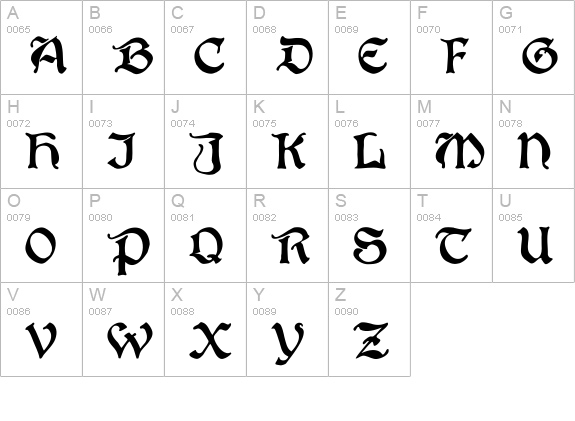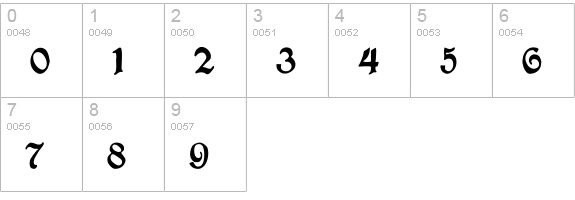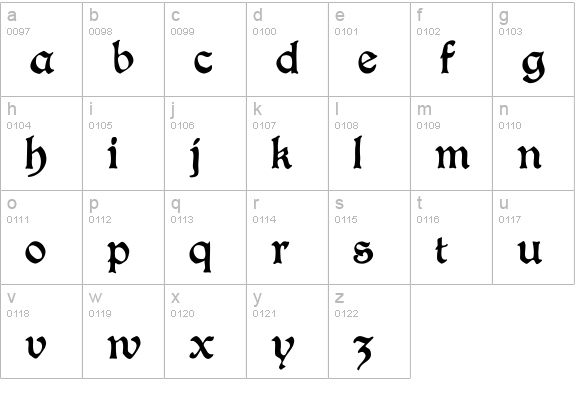
BoisterBlack Font Details
BoisterBlack is a captivating and versatile display font that exudes a bold and dynamic energy. With its strong and impactful letterforms, this typeface is perfect for making a statement in headlines, logos, posters, and more. BoisterBlack strikes the perfect balance between modernity and classic elegance, making it a versatile choice for a wide range of design projects. And the best part? BoisterBlack is available for free download at FontsMarket.com, allowing designers and creatives to access this stunning font without any cost. Whether you're looking to add a touch of drama to your designs or create eye-catching branding materials, BoisterBlack has got you covered. Download it today and unleash the power of this striking typeface in your next project.